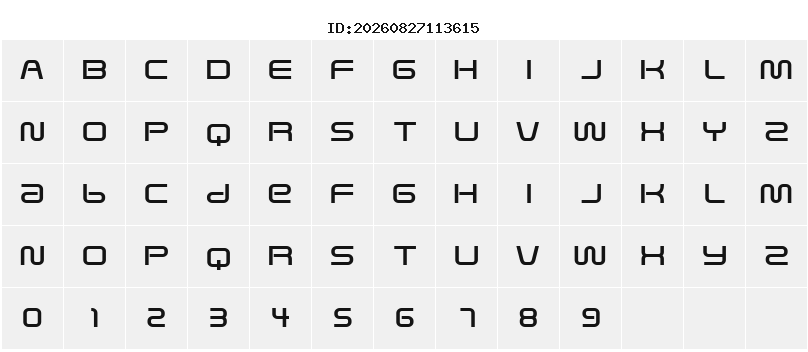
234-CAI978 Preview
About 234-CAI978.ttf
234-CAI978.ttf is a modern, elegant sans-serif font designed for ultimate readability and visual harmony. Perfect for branding, headlines, web design, and print materials.